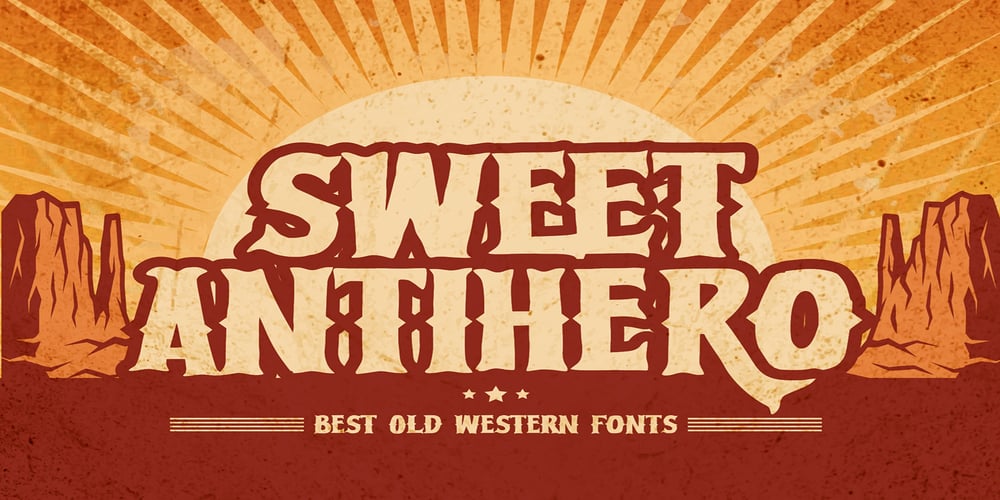
Sweet Antihero Font Family was designed by Abdul Malik Wisnu, Anang Fibriyanto and published by Gassstype. Sweet Antihero contains 1 styles and family package options. Sweet Antihero- Vintage Western font this is bold, strong vintage handwritten western-looking display font.This font is great for your next creative project such as logos, printed quotes, invitations, cards, product packaging, headers, Logotype, Letterhead, Poster, Label, and etc.You can activate Ligature OpenType panel.